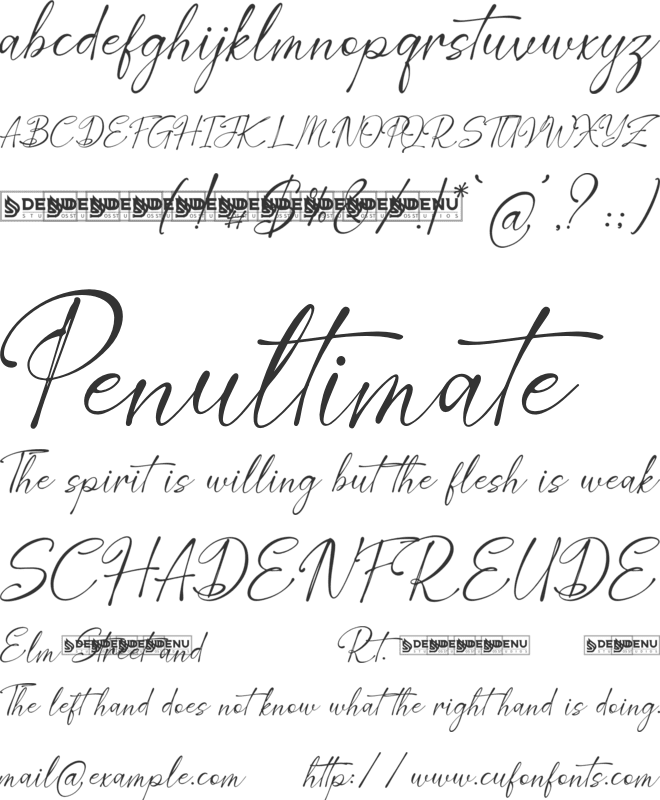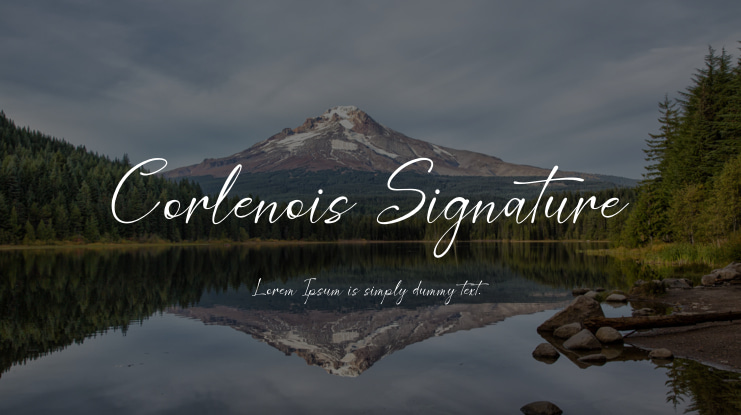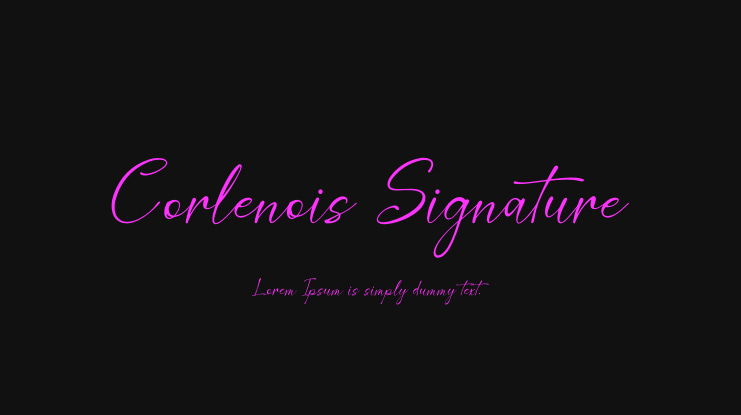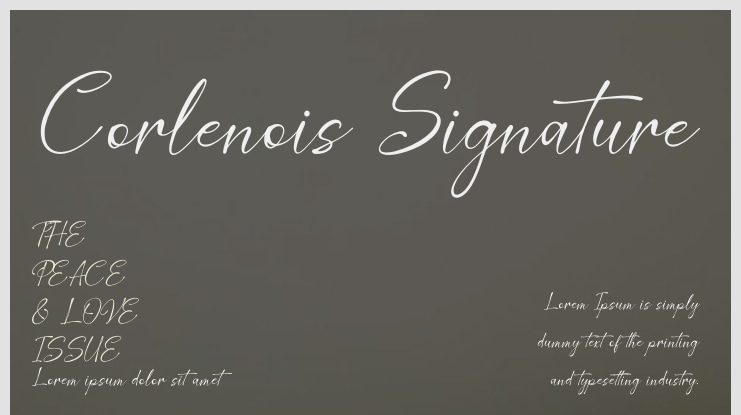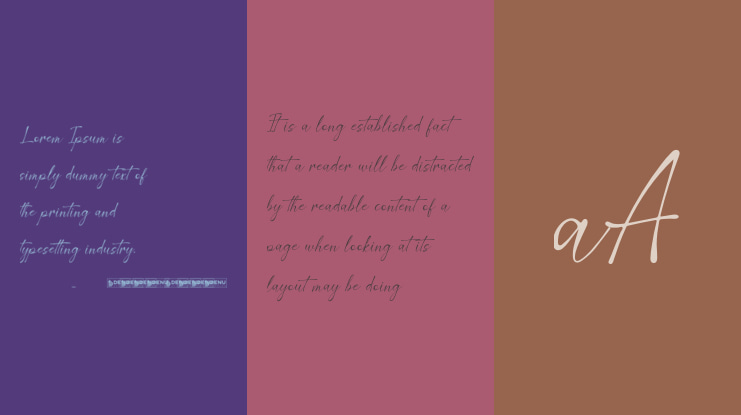
Corlenois Signature Font
Corlenois Signature | Stylish Signature is an ideal font choice for various projects including:
- Logos - Branding - Homeware designs - Product packaging - Mugs - Quotes - Posters - Shopping bags - T-shirts - Book covers - Name cards - Invitation cards - Greeting cards - Labels - Photography - Watermarks - Special events - And many other projects that need a Stylish Signature aesthetic.